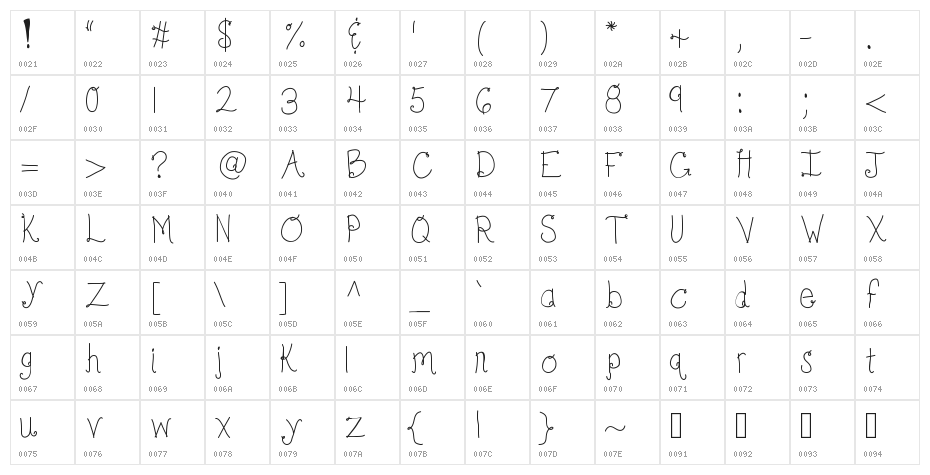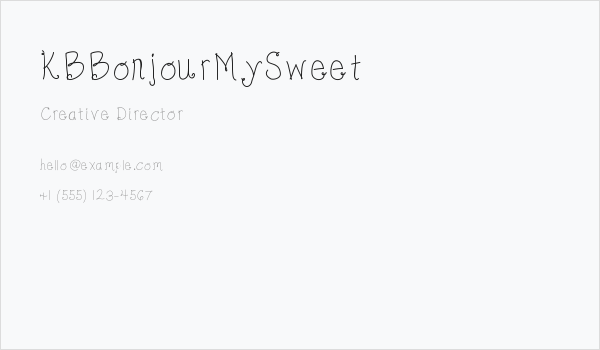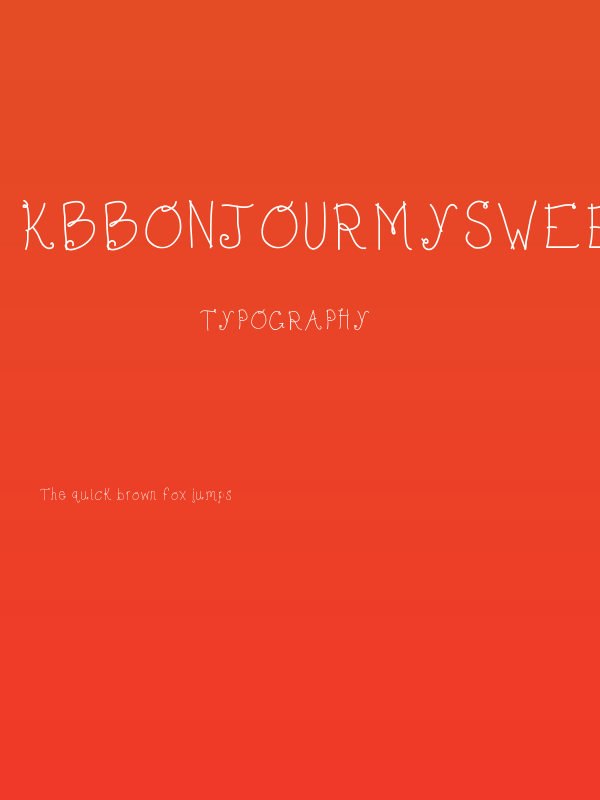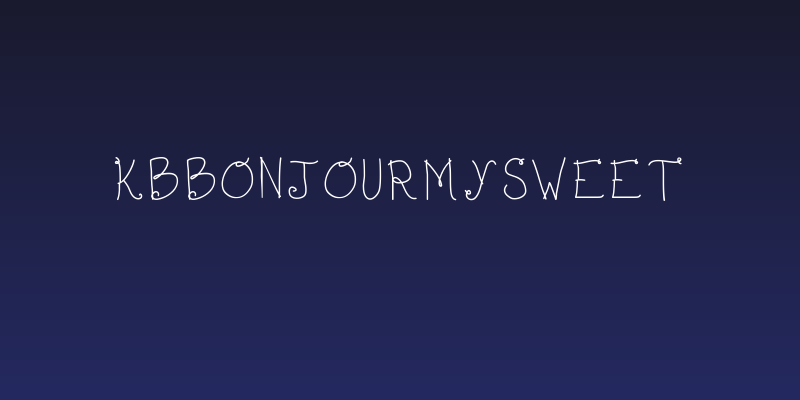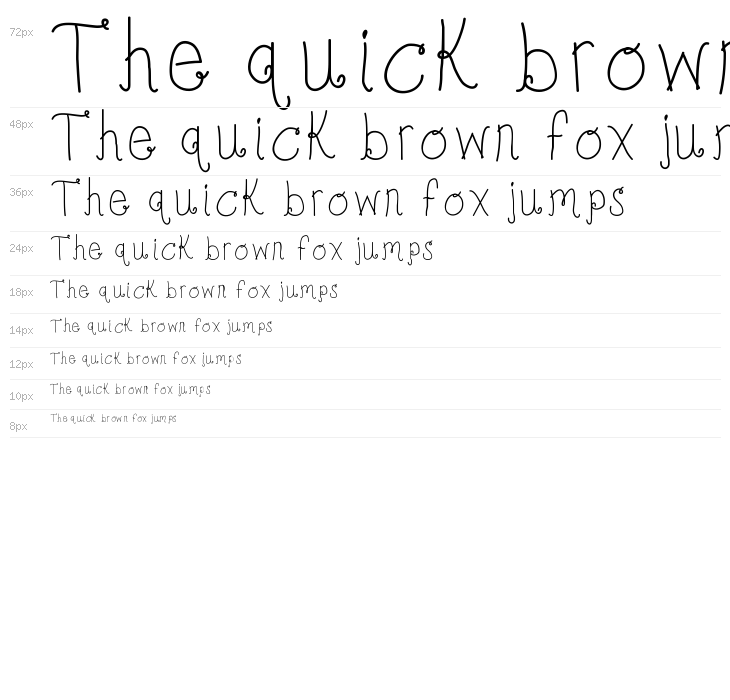
KBBonjourMySweet Font
KBBonjourMySweet Description
This whimsical and playful font features a unique handwritten style with charming curls and loops at the ends of each character. The letters are slightly irregular, adding a touch of spontaneity and creativity. The uppercase and lowercase letters maintain a consistent style, with the uppercase being slightly larger and more pronounced. Numbers and special characters are designed to match the playful aesthetic, making them suitable for creative projects. The font's overall appearance is light-hearted and fun, perfect for adding a personal touch to any design.
| Proposed Projects | Ideal for children's books, greeting cards, playful branding, and creative invitations. |